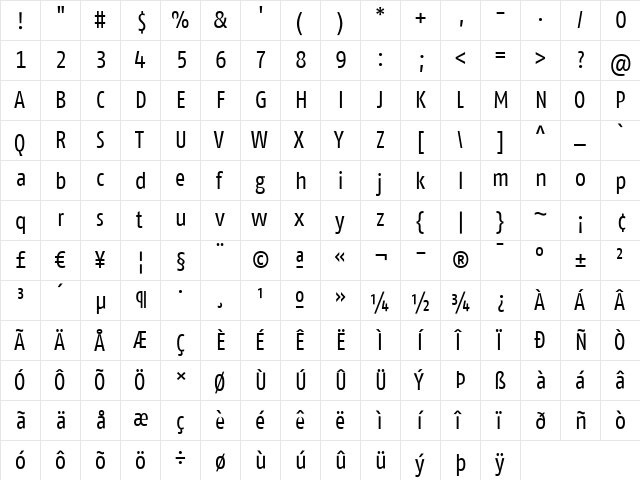
FagoCoTf Regular
Design Context for FagoCoTf Typeface
FagoCoTf is a composed and adaptable typeface that performs quietly and consistently across a wide range of design contexts.